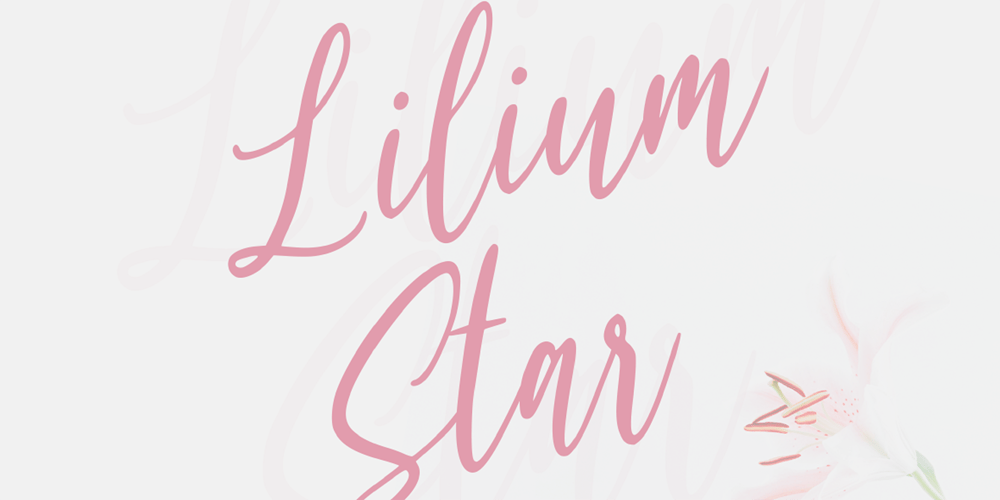
Lilium Star Font Family was designed by Heri Imanudin and published by Krafted. Lilium Star contains 1 styles and family package options. “The modest Rose puts forth a Thorn. The humble Sheep a threat’ning Horn.While Lily white shall in love delight.Nor a Thorn nor a threat stain her beauty bright.” ― William Blake Are you looking for a way to enhance your copy? Introducing Lilium Star – A Modern Handwritten Font. With every hand-drawn stroke and curve, Lilium Star will delight and add brightness, modernity and elegance to wherever it is placed. Impress your wedding guests with gorgeous invitations using Lilium Star. Why not create more engaging content and inspire your audience and clients?This Modern Handwritten font is also perfect for headings, logos, business cards, printed quotes, cards, packaging, and your website or social media branding. What you’ll get: Multilingual & Ligature Support Full sets of Punctuation and Numerals Compatible with: Adobe Suite Microsoft Office KeyNote Pages Software Requirements: The fonts that you’ll receive in the pack are widely supported by most software. In order to get the full functionality of the selection of standard ligatures (custom created letters) in the script font, any software that can read OpenType fonts will work.